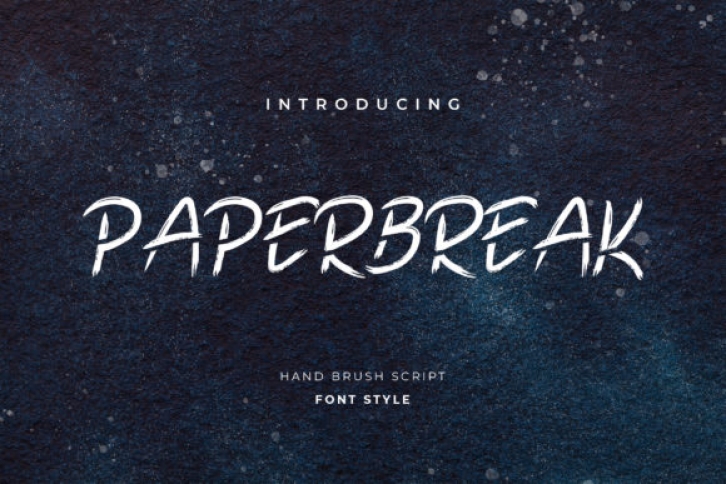
Paperbreak is unique brushed handwritten font, featuring a personal charm. Its natural and simple style makes it incredibly fitting to a large pool of designs. The only limit is your imagination!